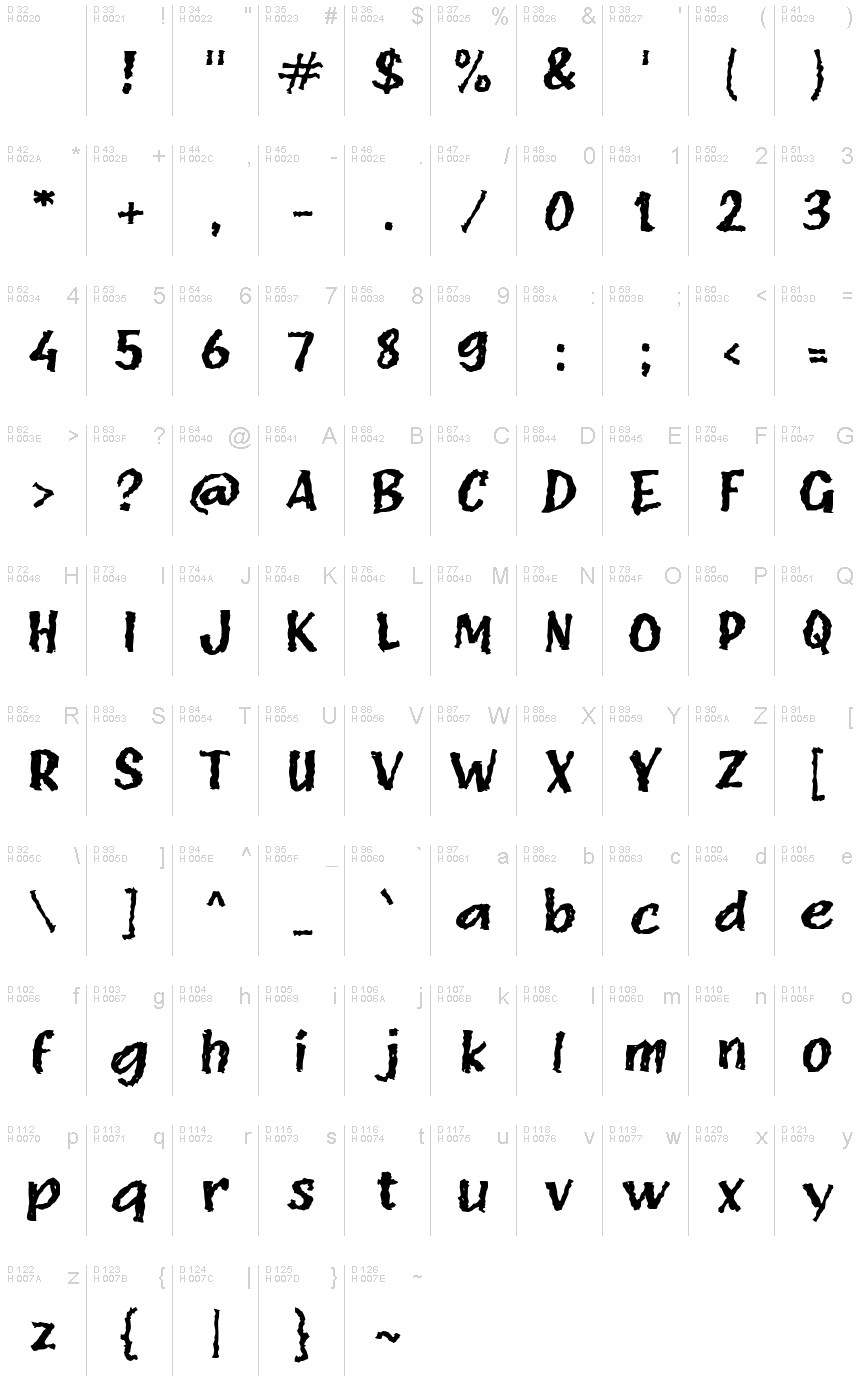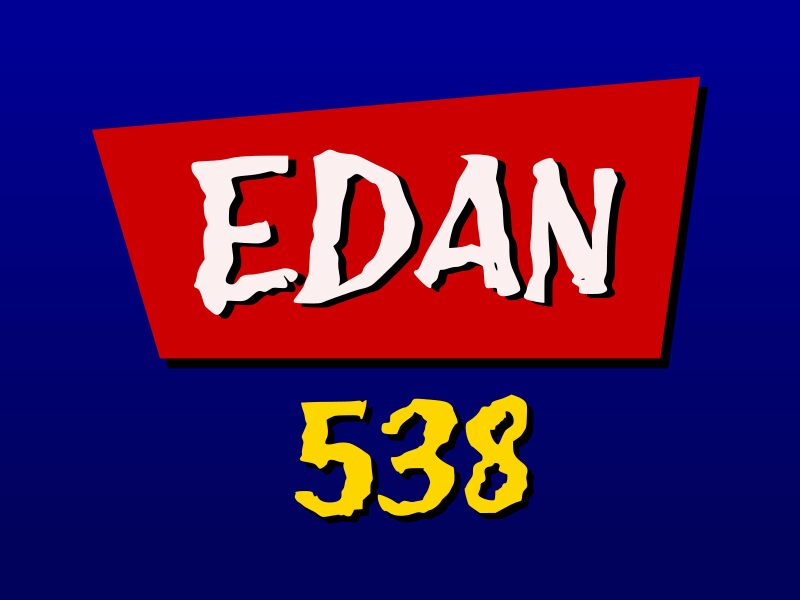
EDAN
Edan is an edgy display font designed by wep that features a unique eroded style. This font is perfect for a variety of projects, ranging from grunge-inspired album covers to bold event posters. The semi-bold font weight makes it ideal for headlines and titles, while the narrow width allows for efficient use of space in design layouts. Whether you're looking to create a vintage aesthetic or add a touch of grit to your modern designs, Edan is the perfect typeface to make your message stand out. Get creative and explore the possibilities with this versatile display font today!